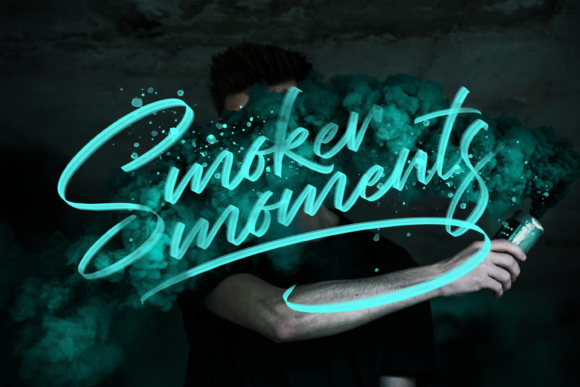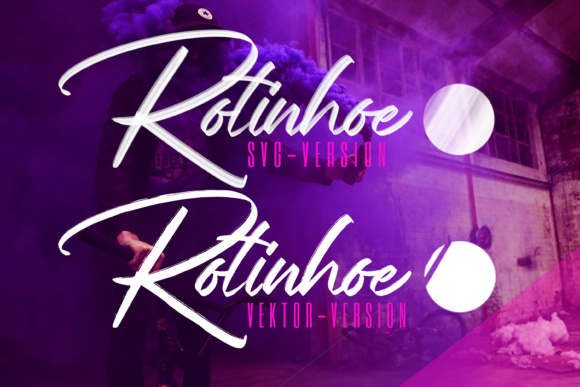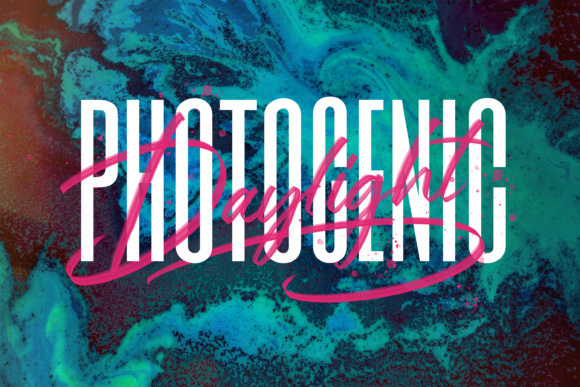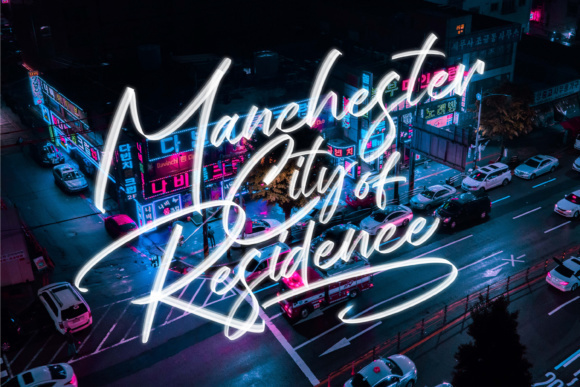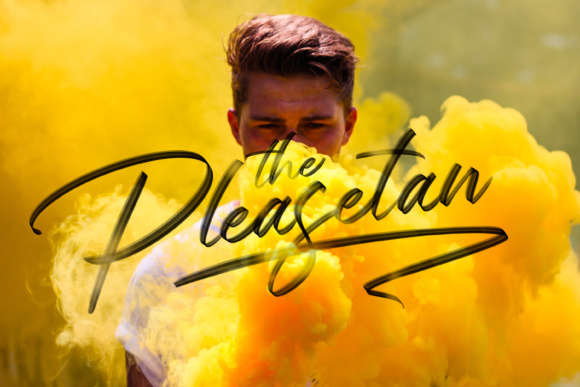
About Chalifor Dalsatic Font
Introducing Chalifor Dalsatic SVG FONT, a unique, cool, and modern handwritten font that will elevate your design projects to new heights. With its handcrafted look and versatile style, this font is perfect for a wide range of applications, including logos, labels, packaging design, blog headlines, posters, and more.